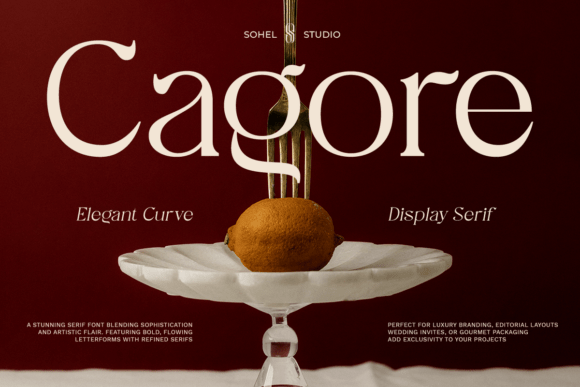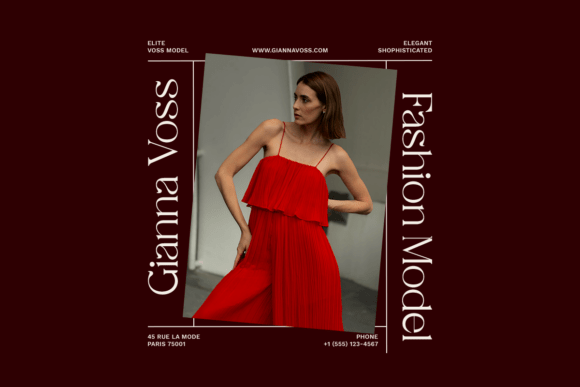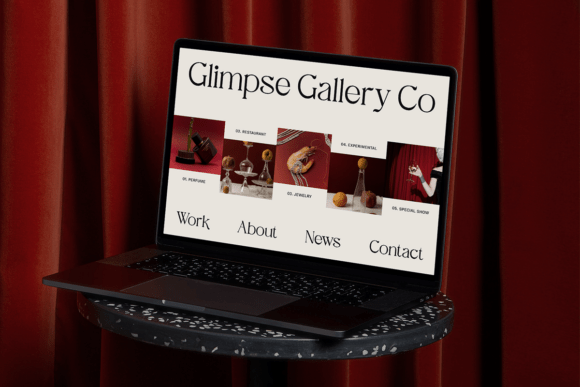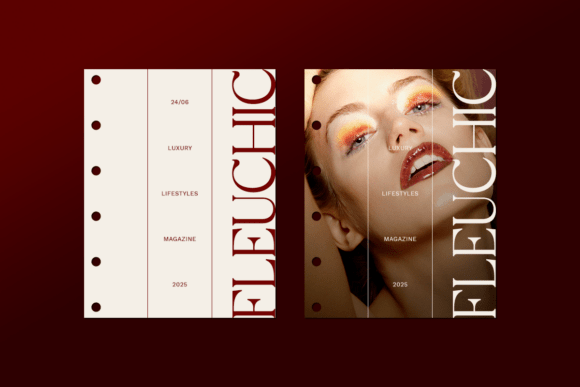
Cagore Font: Elegant Serif for Luxury Branding & Wedding Design
About the Cagore Font
Presenting Cagore Font, a unique and stylish typeface that will make your work stand out. Cagore is a sophisticated display serif font that blends elegance with artistic flair. Featuring bold, flowing letterforms with refined serifs, it is designed to bring luxury and exclusivity to any project. Perfect for high-end branding, editorial layouts, wedding invitations, gourmet packaging, and more, Cagore offers a timeless appeal that elevates your designs with grace and sophistication.
Cagore excels in display contexts such as headlines, logos, and short-form text within marketing materials, invitations, or packaging designs. Its elegant serifs and bold strokes lend themselves to luxury branding and high-end products. However, its strong visual weight makes it unsuitable for body text or UI elements where readability over extended lengths is paramount.
To complement Cagore’s sophisticated personality, consider pairing it with a clean sans-serif like Open Sans for body copy, or a minimalist geometric sans-serif such as Montserrat for a more modern feel. For a touch of contrast and visual interest, a delicate script font could be used sparingly for accents.
Cagore projects an air of refined boldness, making it ideal for brands aiming for a sophisticated yet impactful image. Avoid using it in contexts requiring a friendly or playful aesthetic; its inherent elegance is best suited to projects emphasizing luxury, exclusivity, and timeless quality.